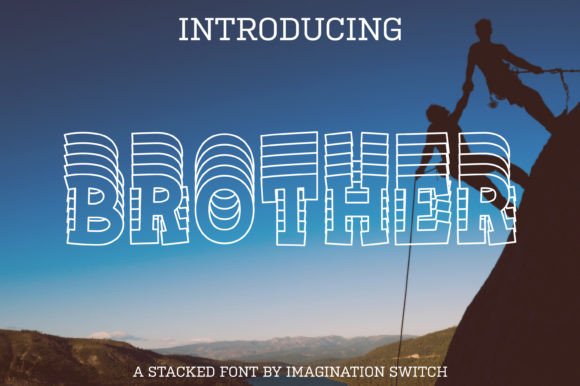
The Brother Font: Elevating Your Designs with Elegance
I’ll never forget the time I was working on a branding project for a luxury client, and I was stuck on finding the perfect font. The client wanted something that exuded sophistication and elegance, but I just couldn’t seem to find the right fit. That was until I stumbled upon the Brother font. With its stacked style and dimensional appearance, it instantly captured the essence of what I was looking for. In this article, I’ll share my experience with the Brother font, its features, and how to make the most of it in your designs.
A Personal Review of Brother Font
- ✨ The elegantly stacked style of Brother font adds a touch of sophistication to any design.
- ✅ The font’s dimensional appearance makes it stand out from more traditional fonts.
- 💡 It’s incredibly versatile and can be used for a wide range of purposes and moods.
While Brother font is exceptional, there are a few things to keep in mind:
- ⚠️ Some of the stacked letters may not work well at very small font sizes.
- 🤔 The font’s uniqueness might make it less suitable for very long texts or body content.
The Backstory of Brother Font
The Brother font was designed with the intention of creating a typeface that stands out through its stacked, dimensional appearance. The designer aimed to craft a font that could convey elegance and sophistication while maintaining readability. The result is a versatile font suitable for a variety of design projects, from luxury branding to creative crafts.
| Font Name | Brother Font |
| Author | Imagination Switch |
| What makes Brother font unique? | Its stacked style and dimensional appearance set it apart from traditional fonts. |
| Can Brother font be used for body text? | While it’s primarily designed for headlines and titles, it can be used for short paragraphs. However, its uniqueness might make it less suitable for very long texts. |
| Is Brother font suitable for digital use? | Yes, Brother font is versatile and can be used for both print and digital projects. |
In conclusion, Brother font is a remarkable addition to any designer’s toolkit. Its elegant stacked style and dimensional appearance make it perfect for projects that require a touch of sophistication. By understanding its features and how to use it across different platforms, you can elevate your designs and create stunning visual content.